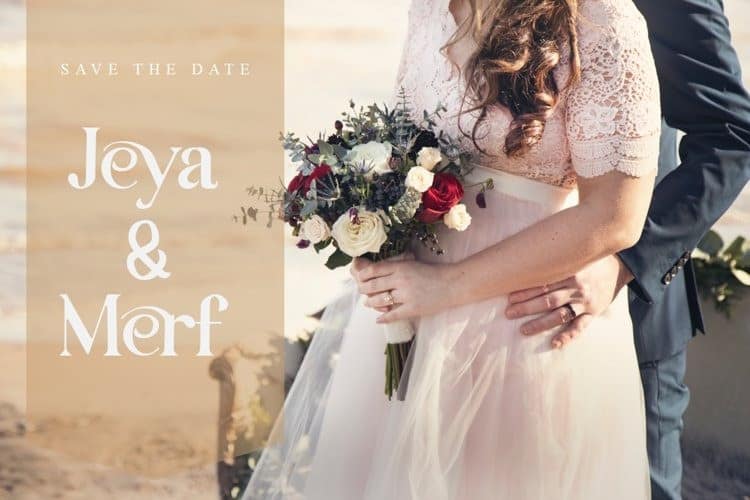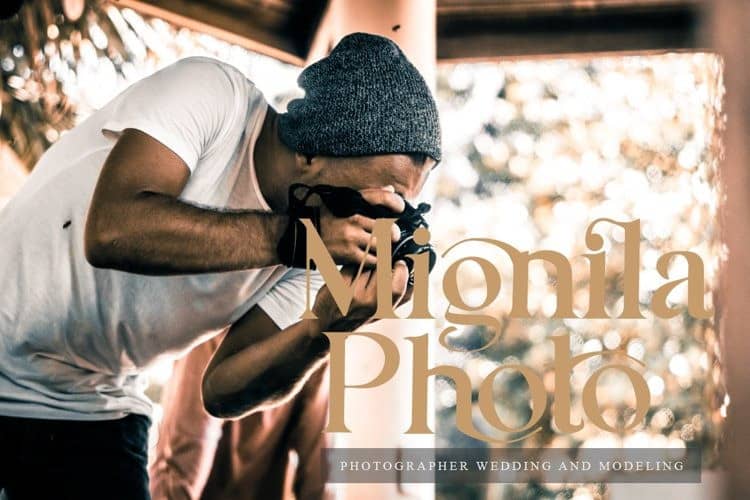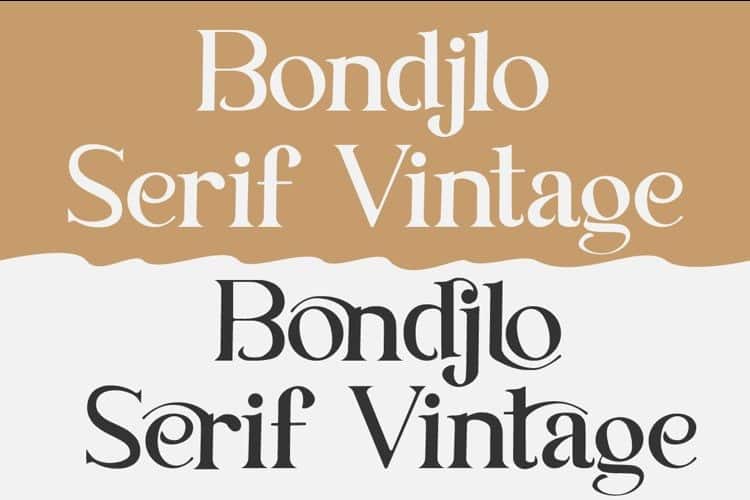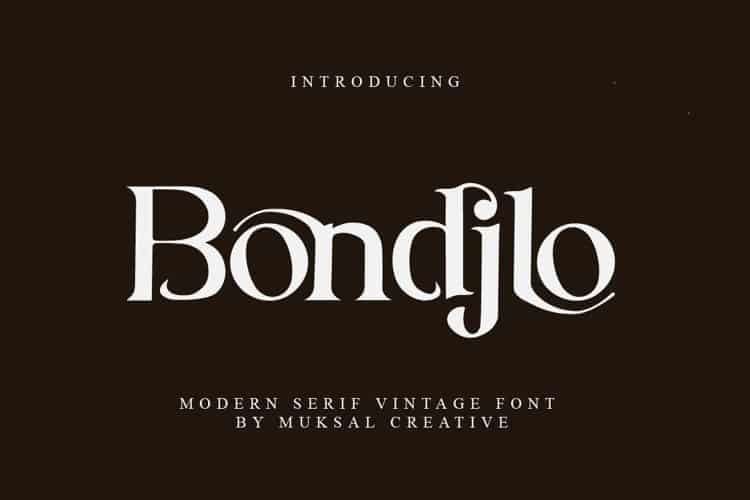
Bondjlo Serif Font is a rustic and unique serif font. A gritty, raw, and yet somehow charming typeface designed to grab your attention. This font is designed and shared by Muksalmina. It’s a fancy and modern serif font will elevate a wide variety of projects, from logos and stationery to magazine covers and social media posts. This typeface will take your designs to the next level!